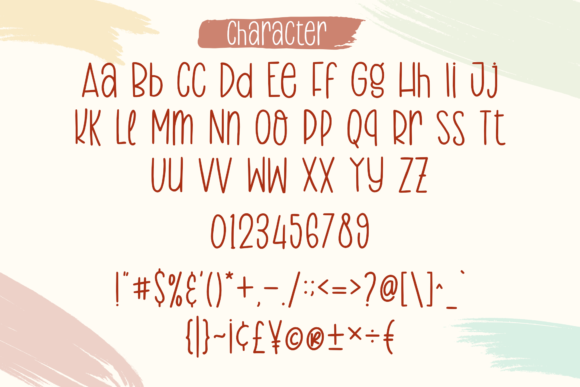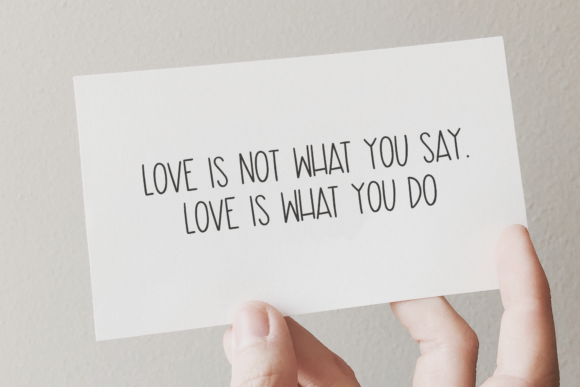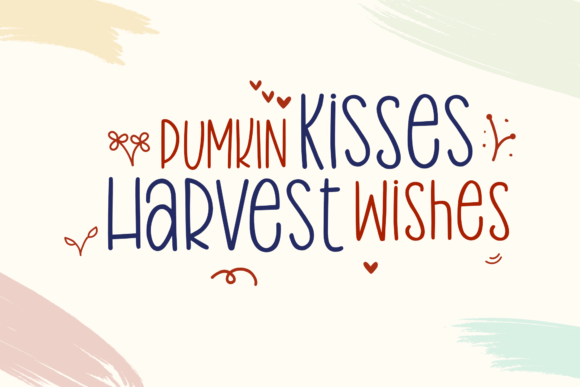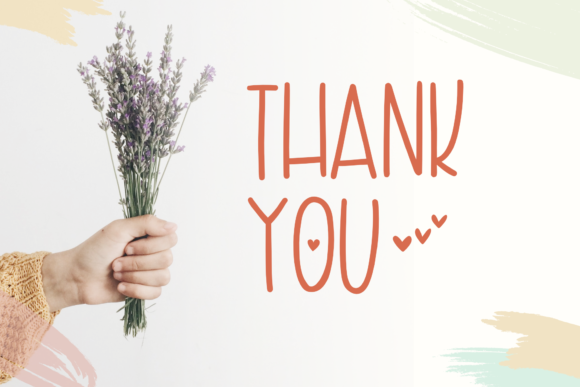
Introduction to Harvest Delight Font Font
Fonts play a crucial role in design, and the Harvest Delight Font font is a typeface that brings both character and versatility to any project. Whether you’re working on a branding project, a website, or a print design, the Harvest Delight Font font offers a unique style that can elevate your work.
Harvest Delight is a whimsical handwritten font.
This font is great for those who love creating cute and lovely crafts, designs, cutting, printing, social media posts, and much more .
Key Features of Harvest Delight Font Font
Why Choose Harvest Delight Font Font?
The Harvest Delight Font font is more than just a typeface – it’s a design tool that helps you communicate your message with style and clarity. Its unique character set and versatile design make it suitable for a wide range of applications, from elegant invitations to bold headlines.
With its carefully crafted letterforms and balanced proportions, the Harvest Delight Font font ensures readability and visual appeal across all mediums.
What makes Harvest Delight Font font special?
The Harvest Delight Font font stands out with its unique design, exceptional readability, and versatility across various design applications.